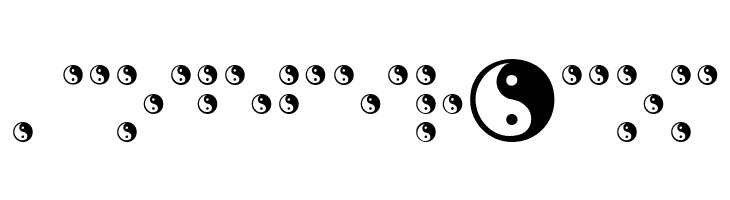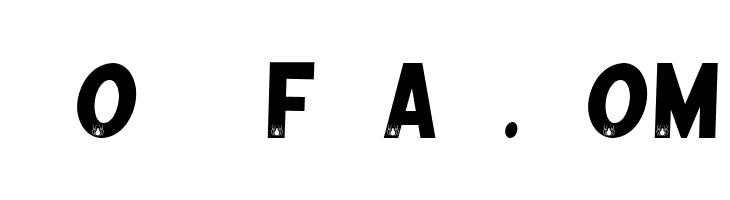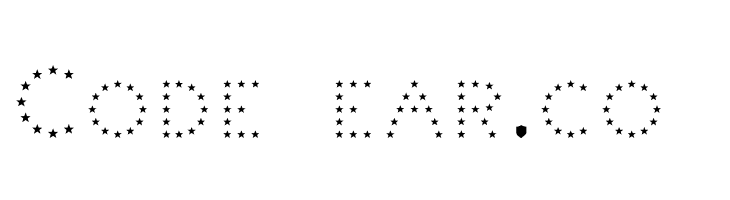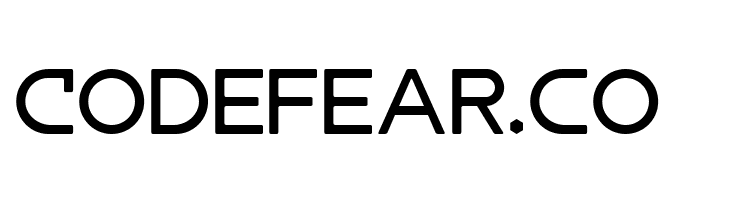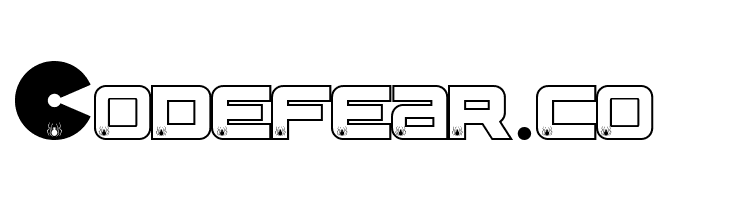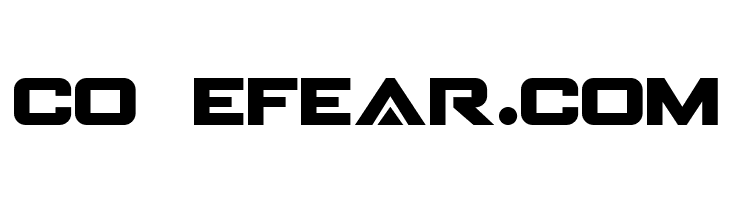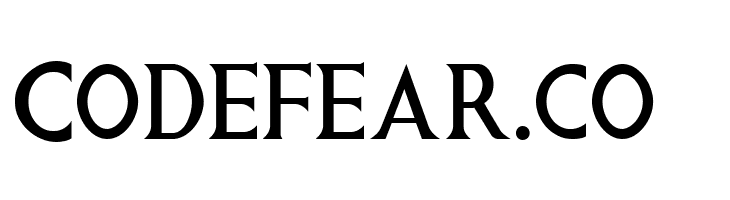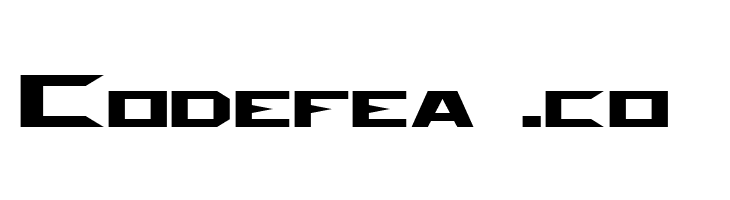
( BRAILLE TAIJITU )
A Braille-inspired font featuring yin-yang symbols for a harmonious visual and tactile experience.
( AMAZING FONTASY )
A bold, playful font with spider icons for a whimsical touch.
( GDPR IVACY )
A decorative font made of star patterns, offering a whimsical and festive style.
( ALTERED CARBON )
A futuristic, geometric font with bold, angular letterforms ideal for tech-inspired designs.
( myhindi font by https://hindifonts.org/ )
Not a valid font sample; only placeholder glyphs are shown.
( READY PLAYER FONTE )
A bold, geometric font with a futuristic and playful design, featuring unique cutouts and patterns.
( OVERWATCH )
A bold, futuristic font with sharp angles and geometric shapes.
( ASSASSIN'S CREED )
A classic serif font with sharp serifs and medium contrast, exuding elegance and sophistication.
( MEGALODON )
A bold, decorative font with a spider motif, perfect for Halloween themes.
( THE ONE )
A bold, angular font with a futuristic, geometric design.